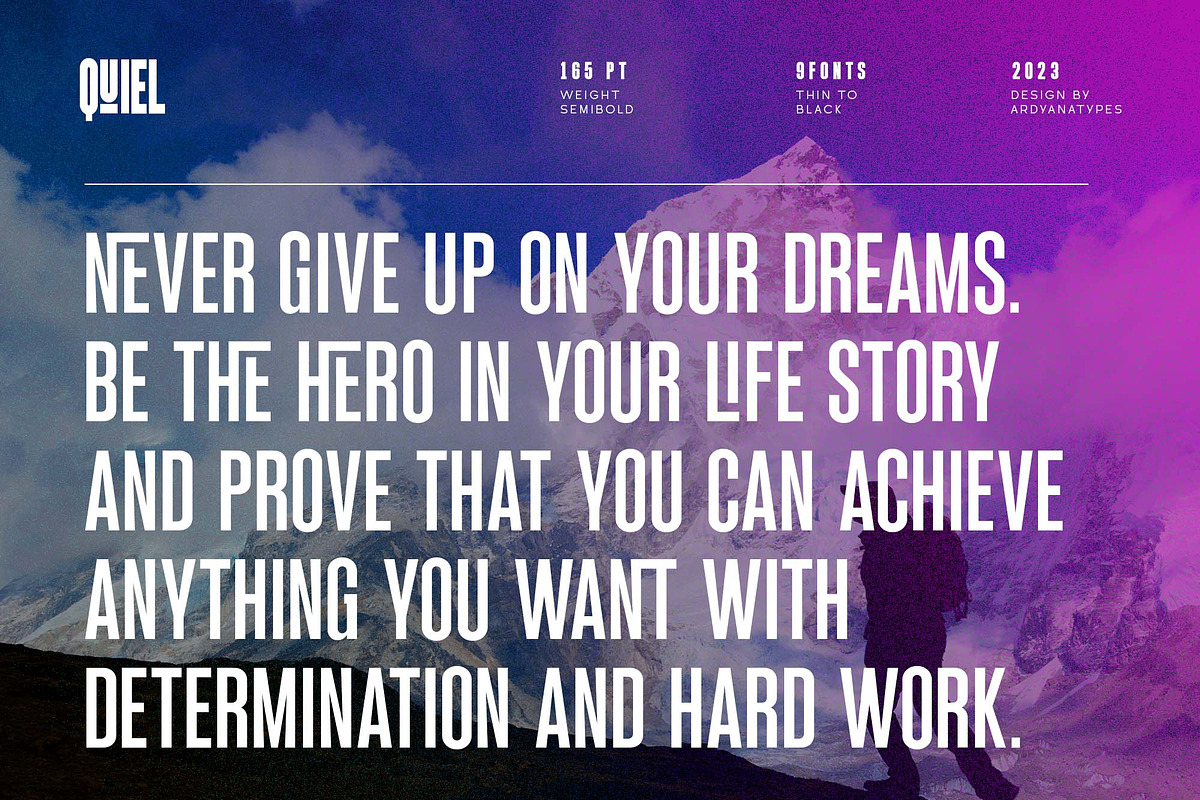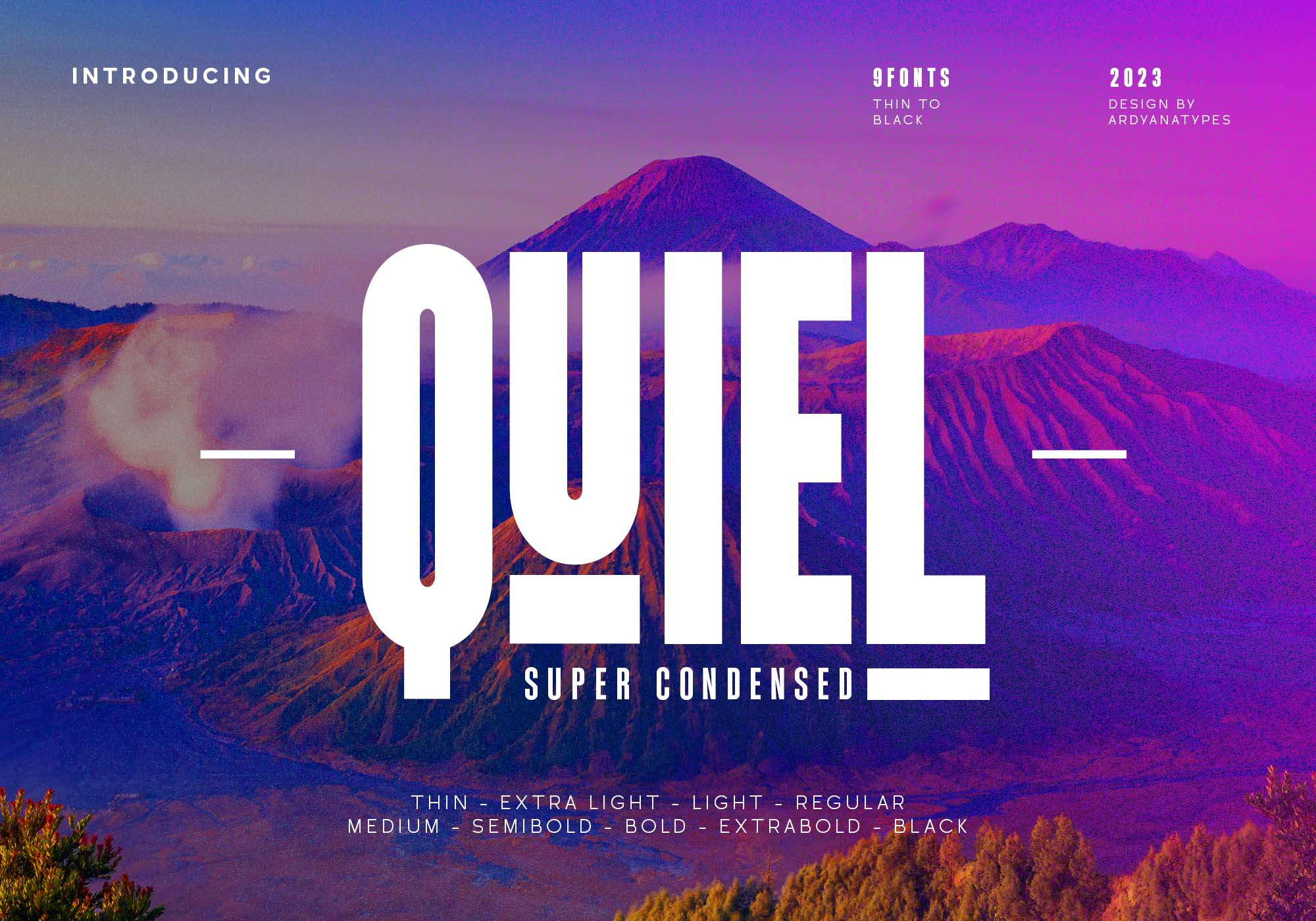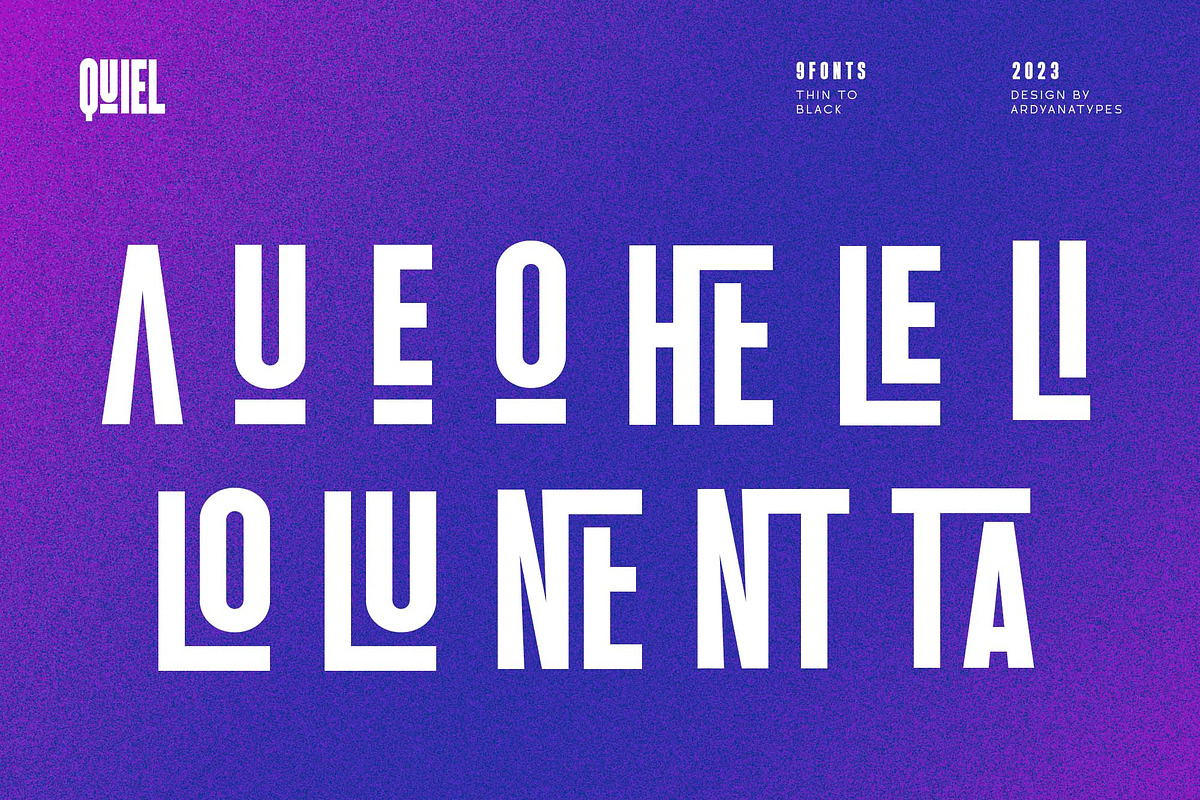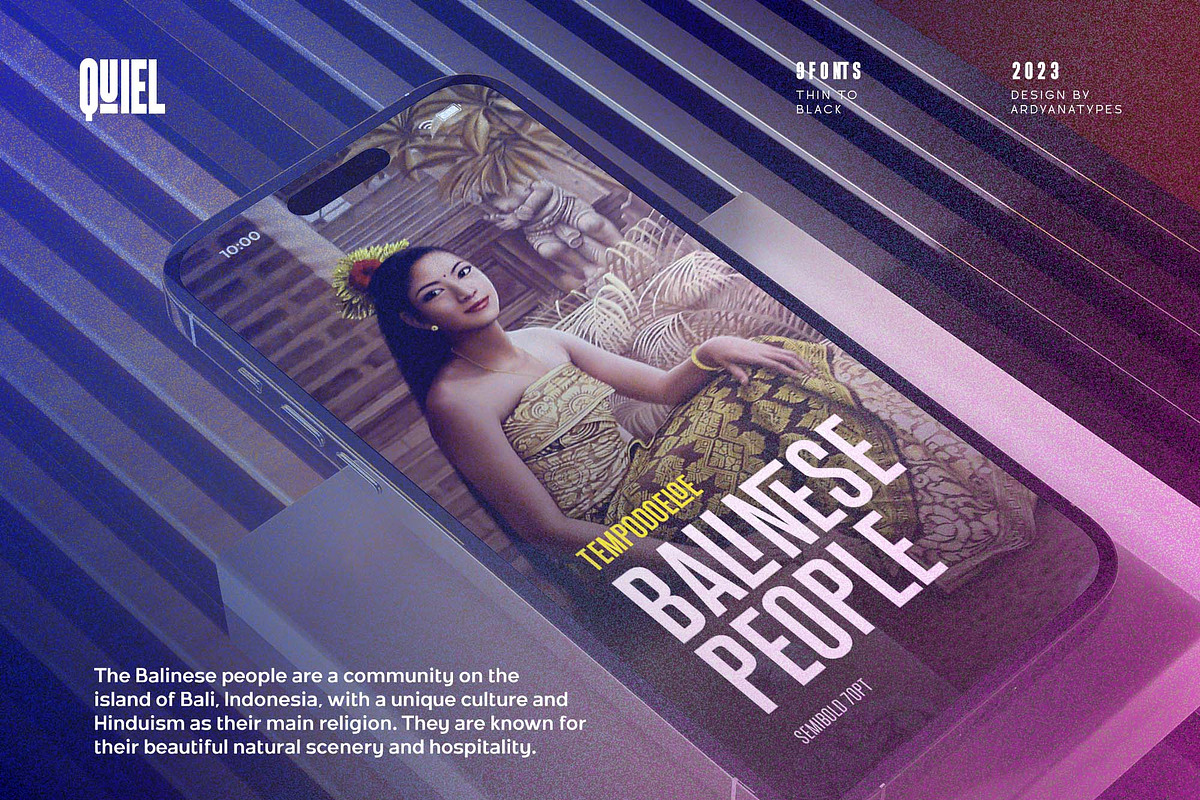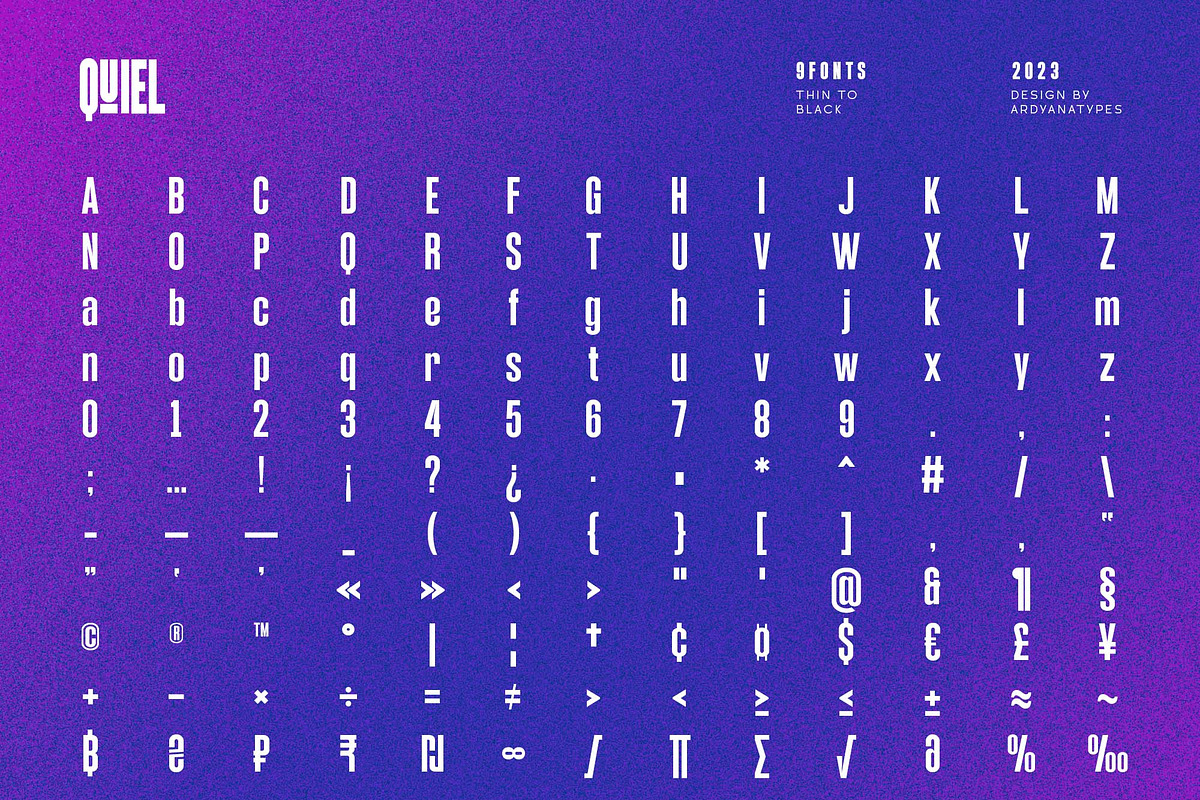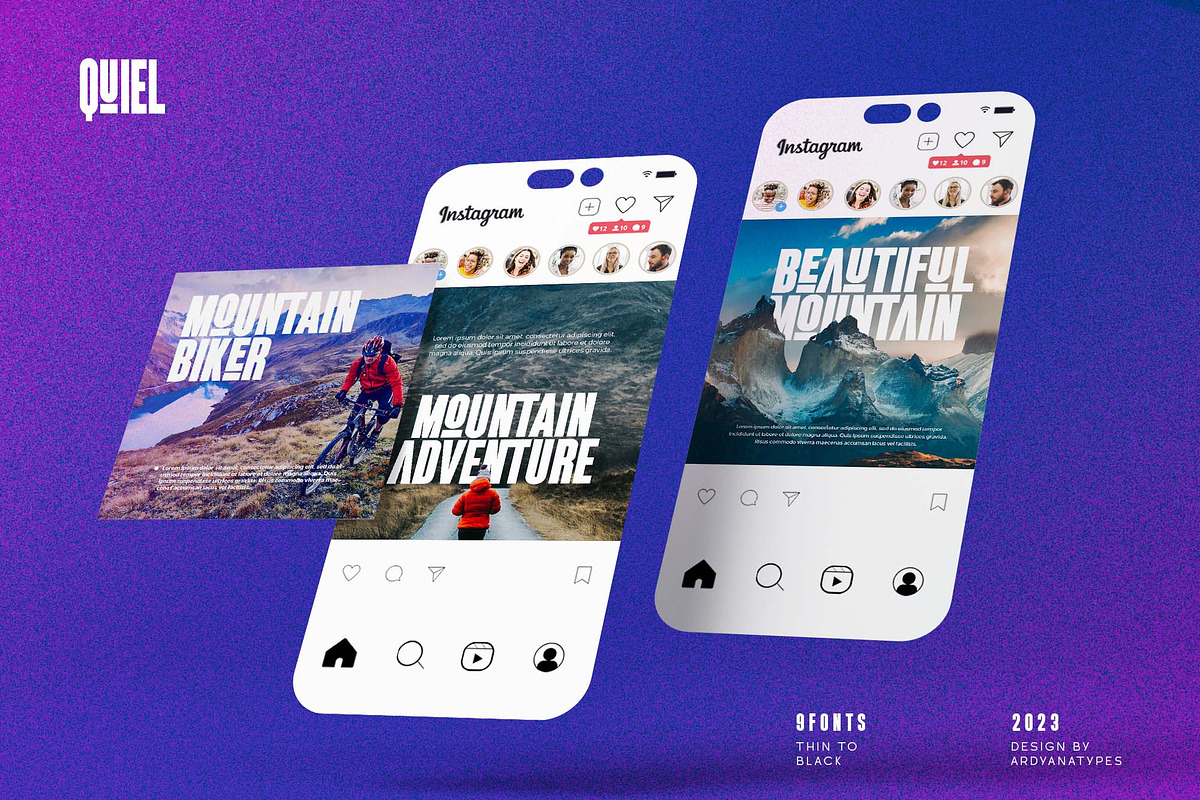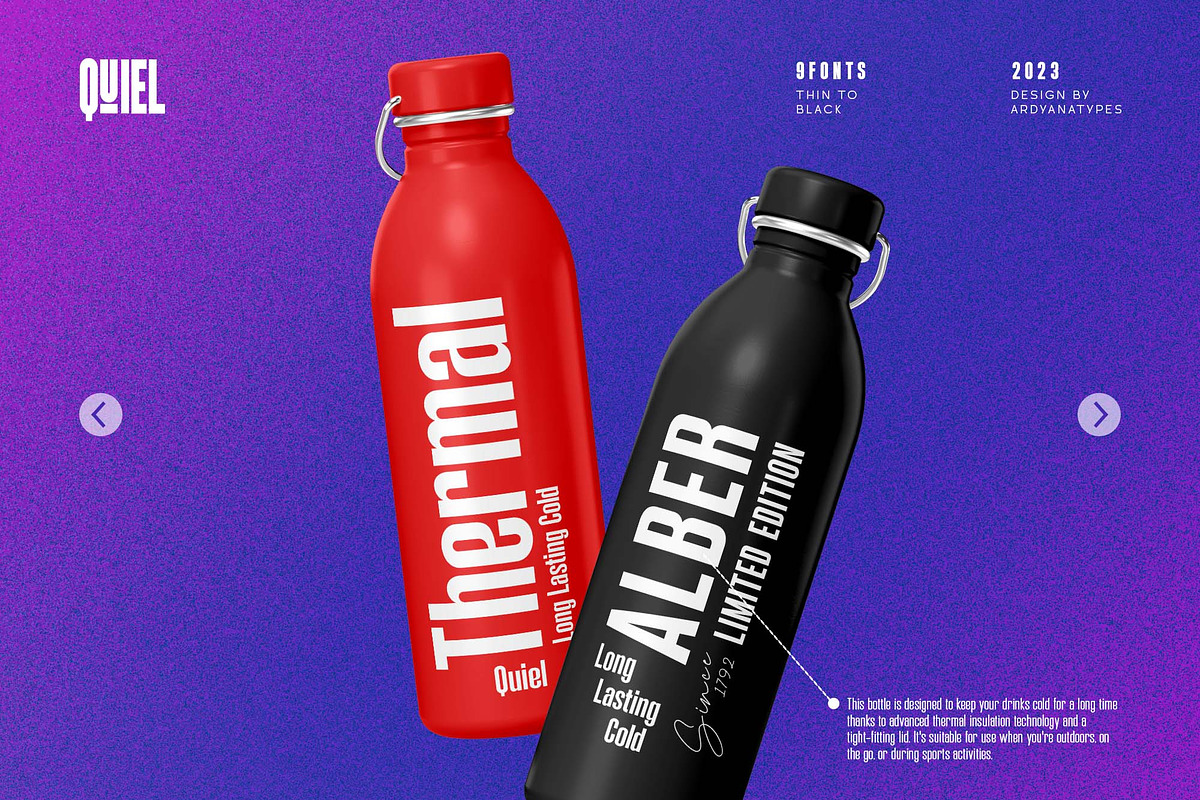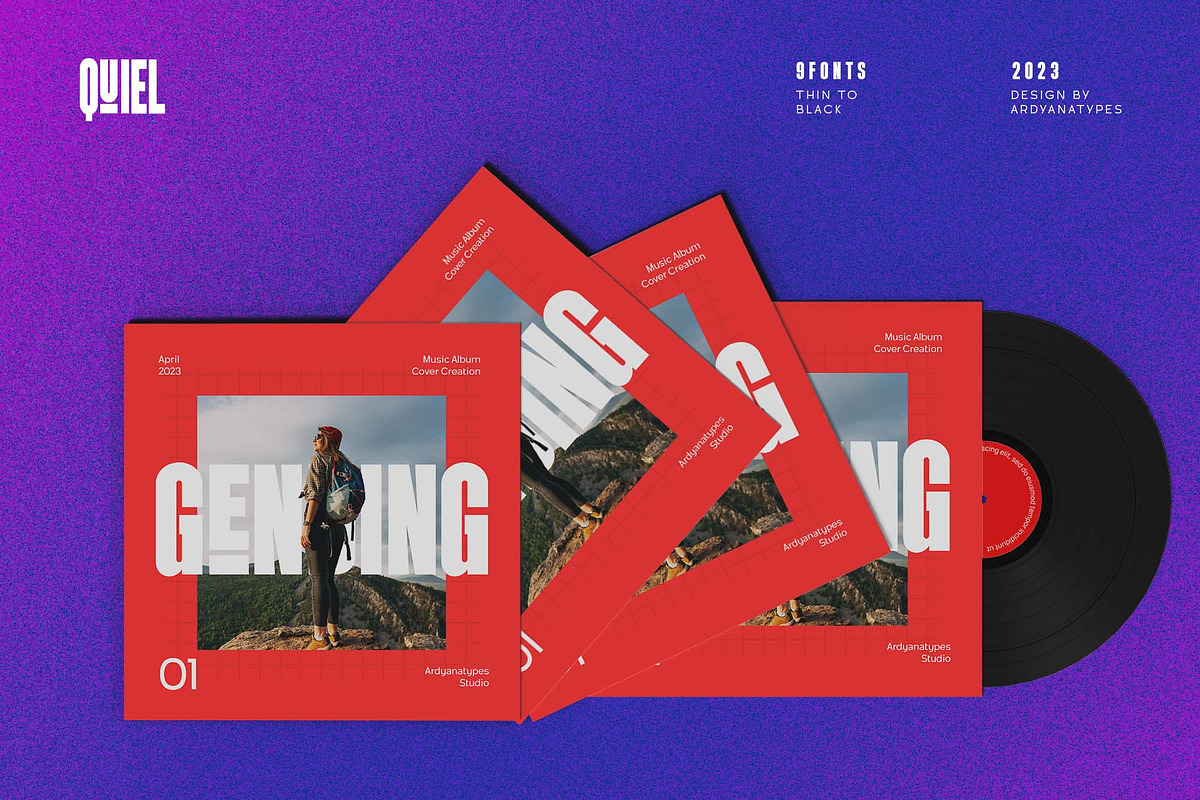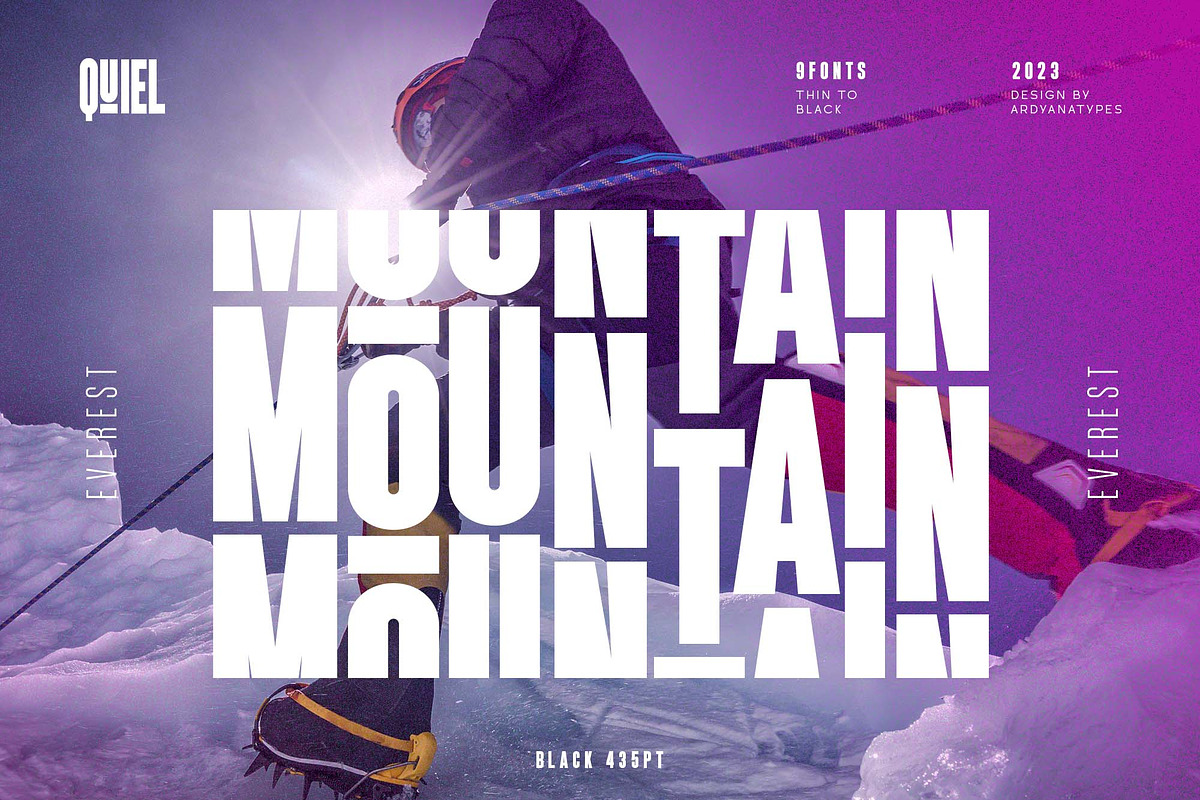
Quiel - Super Condensed Font
QUIEL is a font inspired by modern and retro styles blended with elegance. With its dynamic shape, this font is suitable for any design to showcase a stylish, retro, or classic ambience. With nine available weights, QUIEL can easily be adjusted to suit various design preferences.
The advantages of QUIEL are not only in its appealing appearance but also in its flexibility in terms of language. This font supports multiple languages, making it easy to use in different countries and languages. Furthermore, QUIEL comes with ligatures and alternate styles, which can enhance the visual appeal of your designs. The inclusion of alternative fonts also provides a range of options for combination.
QUIEL is highly suitable for branding projects and various design needs, such as business cards, name tags, advertisements, posters, invitations, branding, logos, magazines, merchandise, and presentations. The unique modern letterforms of QUIEL allow for interesting combinations with various other font types.
With its diversity and flexibility, QUIEL is the perfect choice to elevate the visual aspect of your designs, providing an elegant and captivating touch.